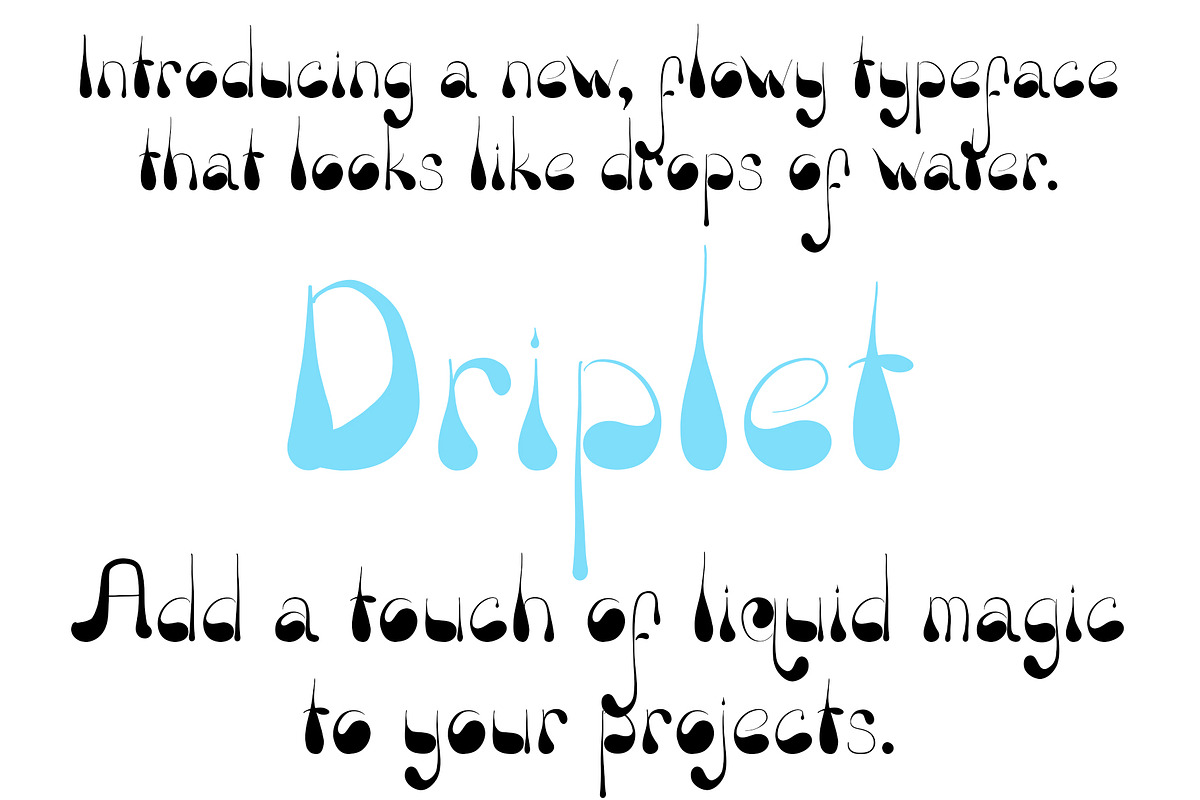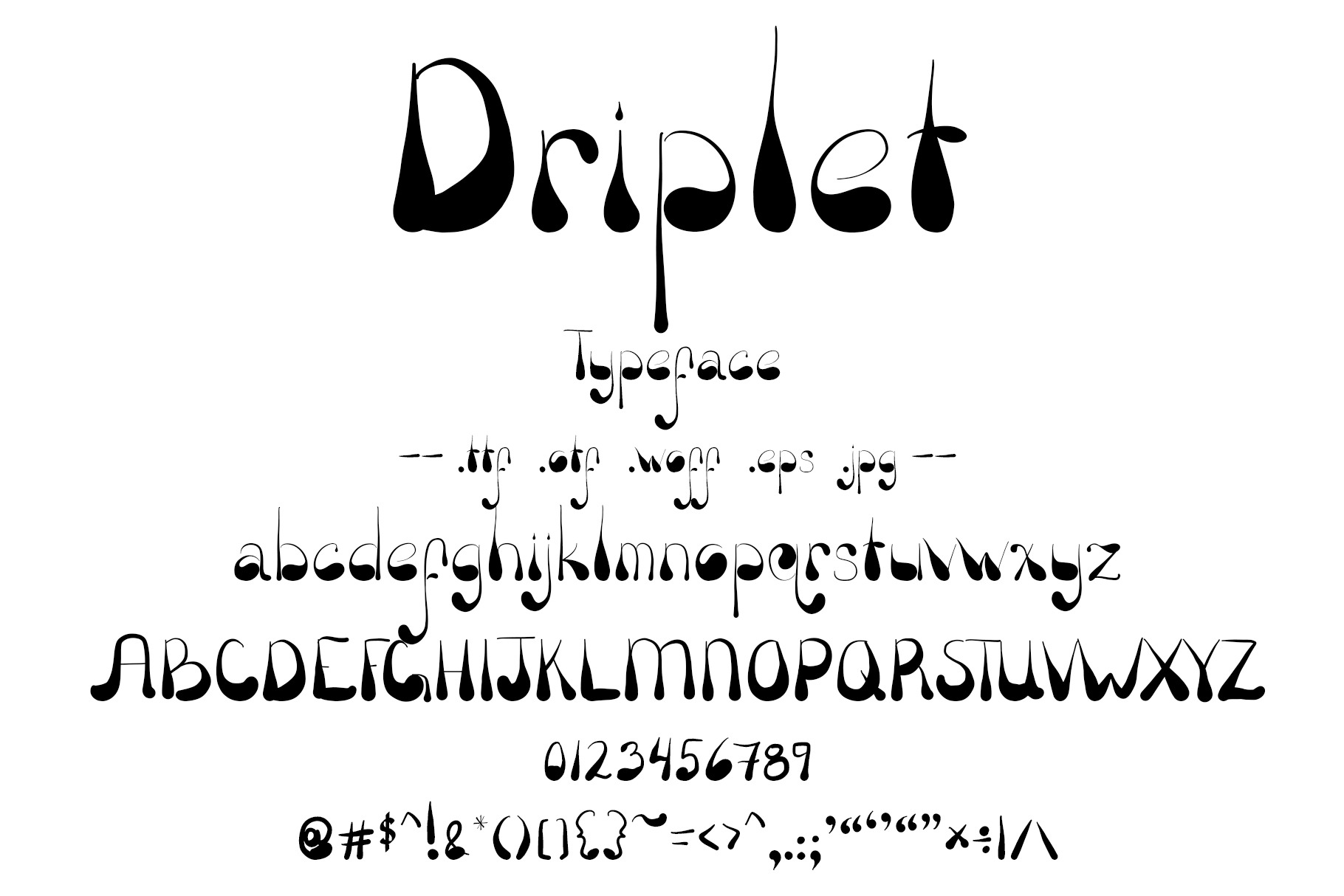
Font Driplet Raindrops Water Drops
NEW UPDATE: Now with Upper and Lower case! Creative hand drawn vector font. A cute lettering set in the shape of water drops, dripping like rain. Raindrops falling around pretty, flowing, water letters. Vector (.eps) and JPEG included along with .otf and .woff/.woff2.